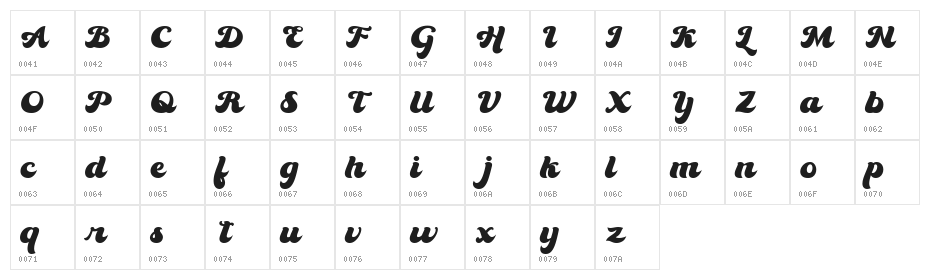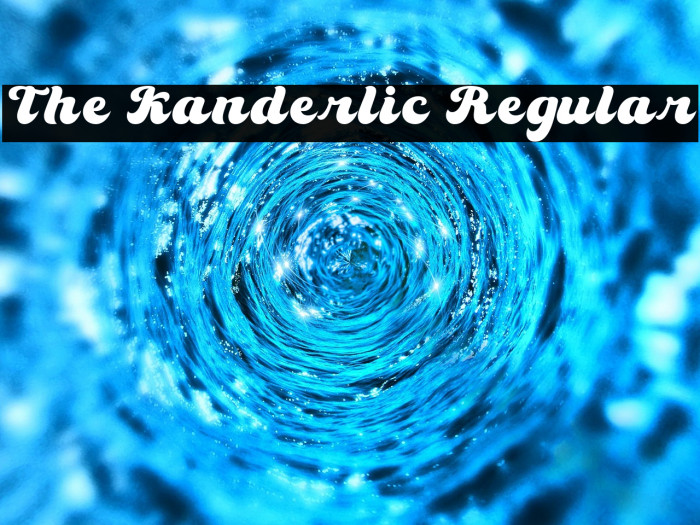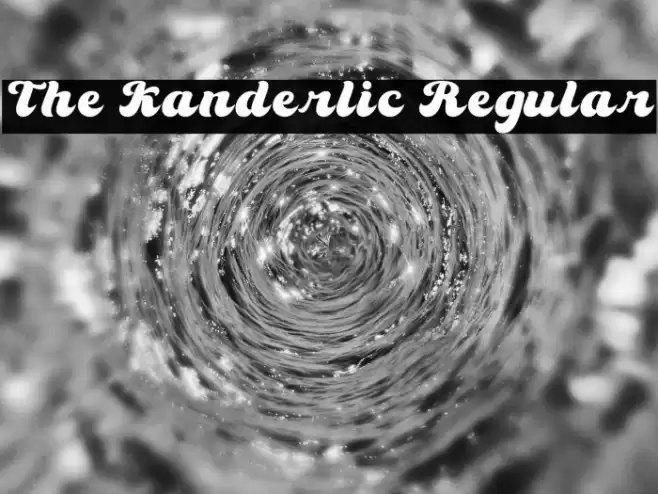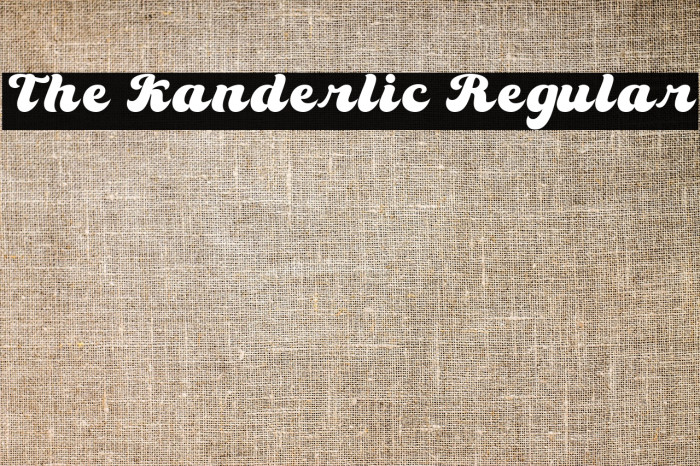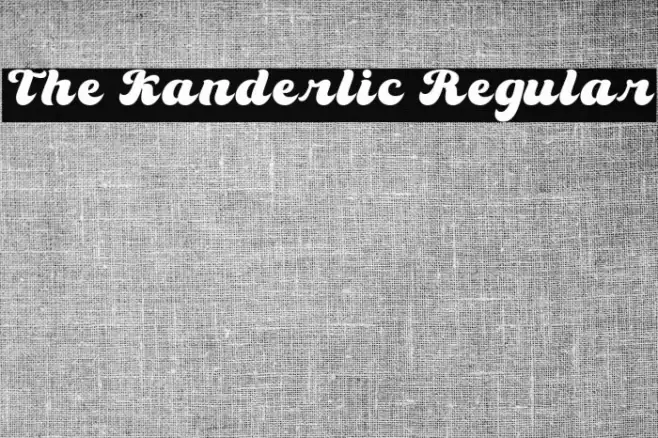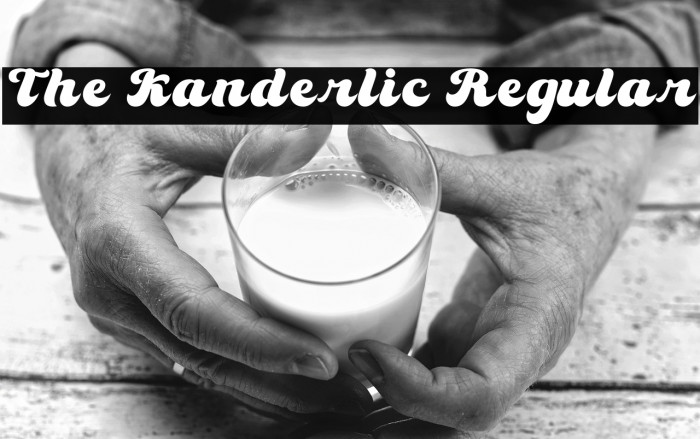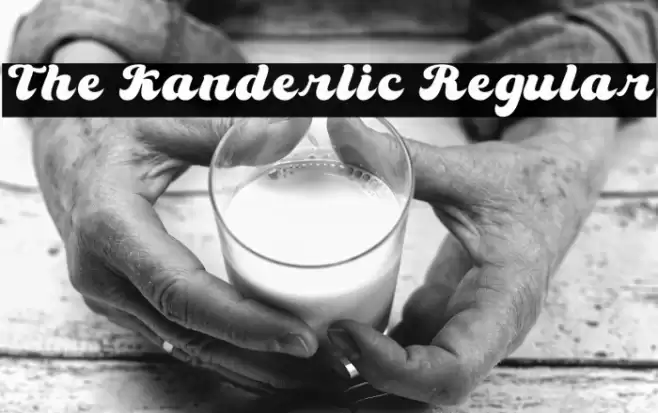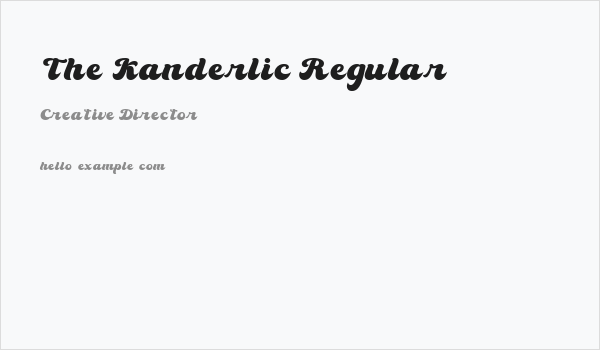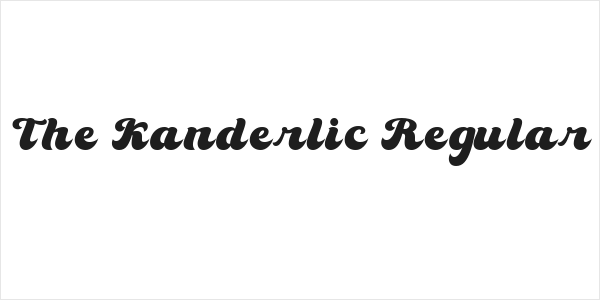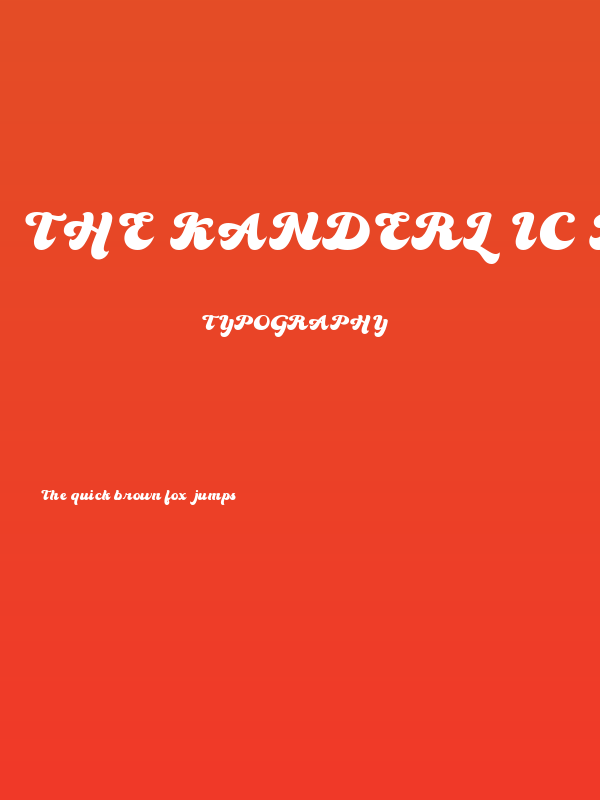
The Kanderlic Regular Font
The Kanderlic Regular Description
This font features a bold and expressive style with a strong presence. The characters are crafted with a flowing, cursive design that adds a sense of elegance and movement. The strokes are thick and consistent, providing a robust appearance. The uppercase letters are particularly striking, with decorative flourishes that enhance their visual appeal. The lowercase letters maintain a cohesive look, complementing the uppercase with their rounded and smooth forms. This font's overall aesthetic is both dynamic and sophisticated, making it suitable for a variety of creative applications.